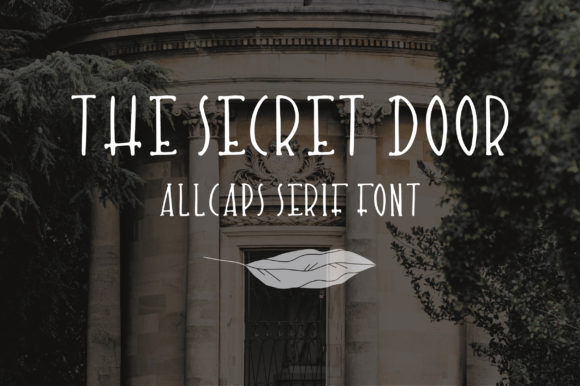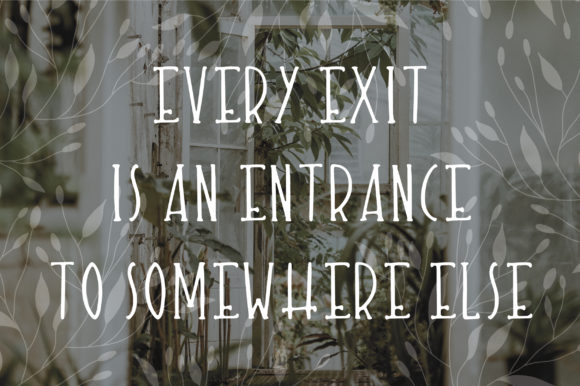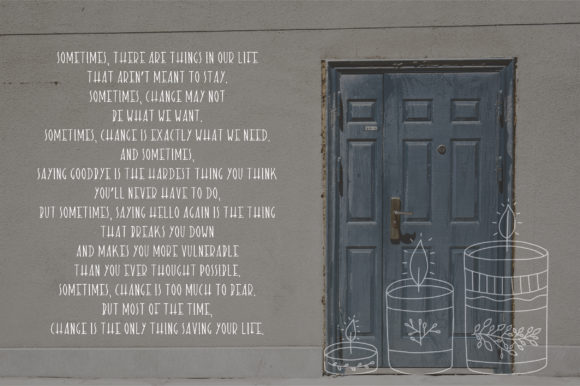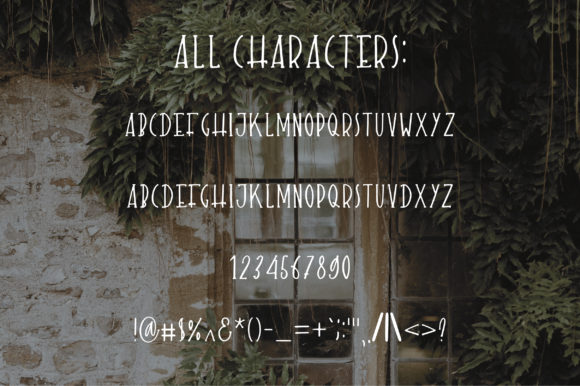
The Secret Door Font
About The Secret Door Font
The Secret Door is a cute and imperfect handwritten font in all caps. It will add a bold flavor to any creative project!